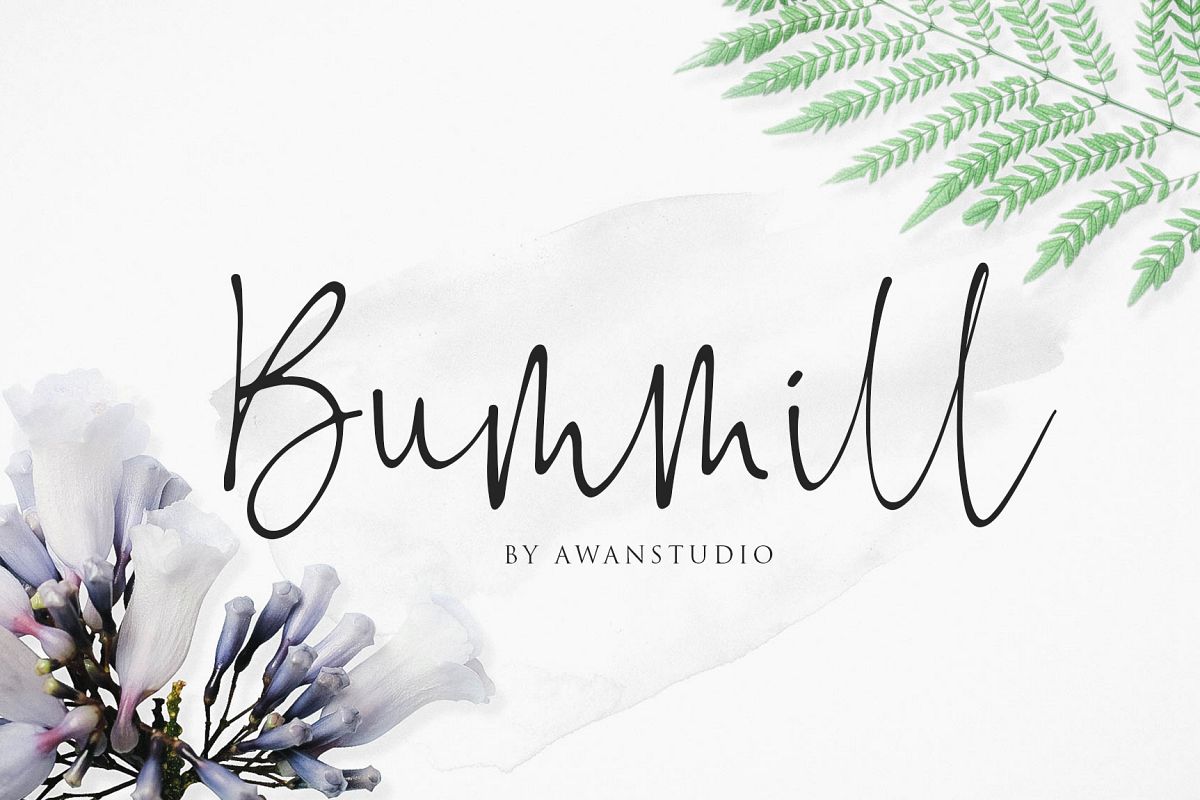
Bummil
Bummill is a beautiful signature font, perfect for invitationals and fashion projects. This font can add a high level of style to your work, and has a refreshing and elegant feel.
Bummil contains standard characters, lowercase, uppercase, numbers, punctuation, ligatures, and international characters. You will receive OTF and TTF files.